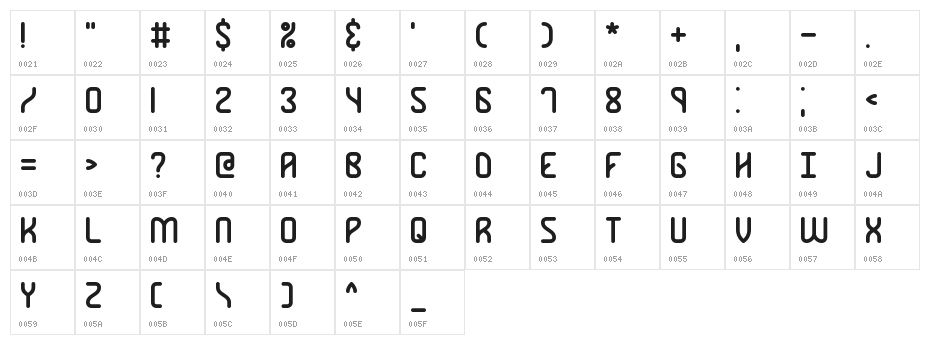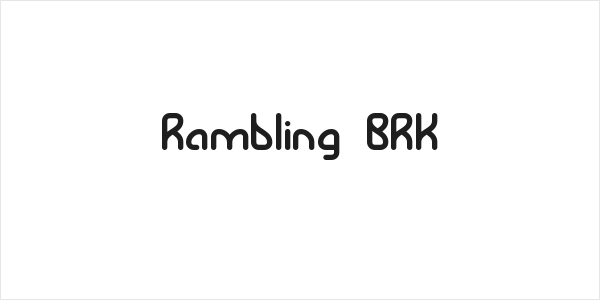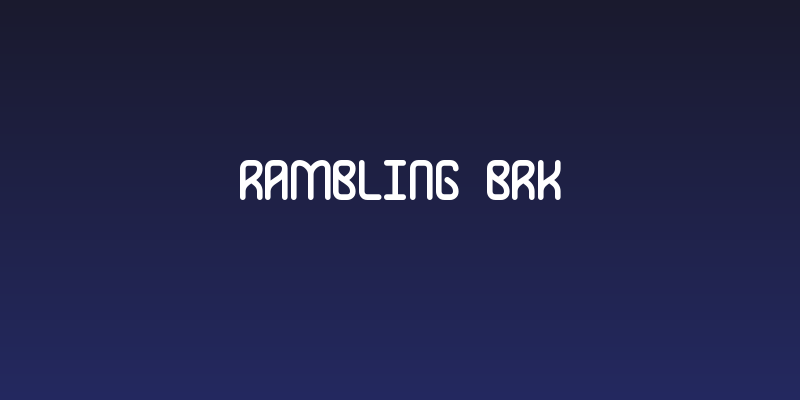
Rambling BRK Font
Rambling BRK Description
This font features a playful and rounded design, characterized by its smooth, continuous lines and uniform stroke width. The letters have a soft, approachable appearance, with slightly elongated forms that give it a unique, flowing aesthetic. The rounded edges and consistent thickness contribute to a friendly and modern look, making it suitable for casual and informal contexts. The numerals and special characters maintain the same rounded style, ensuring a cohesive appearance across all glyphs. Its simplicity and readability make it versatile for various design applications.
| Proposed Projects | Ideal for children's books, playful branding, casual invitations, and digital content aimed at a youthful audience. |